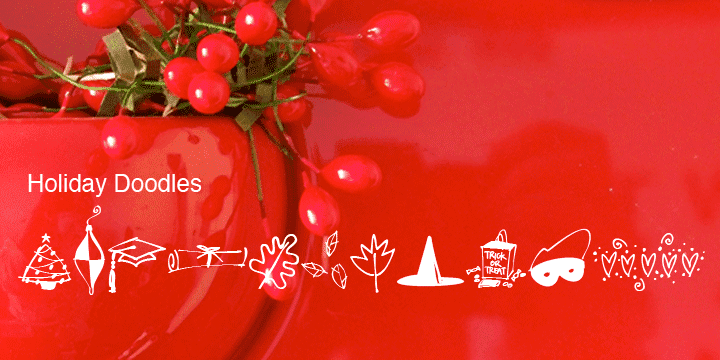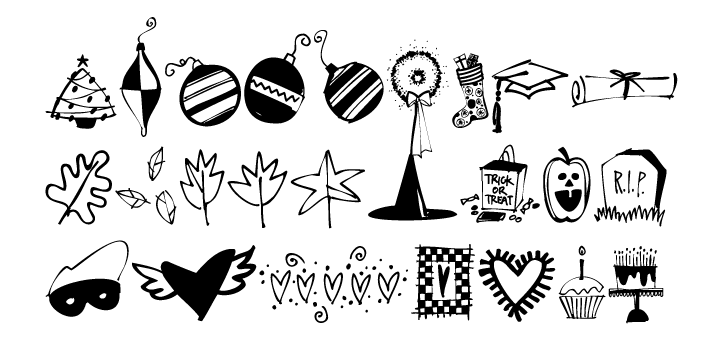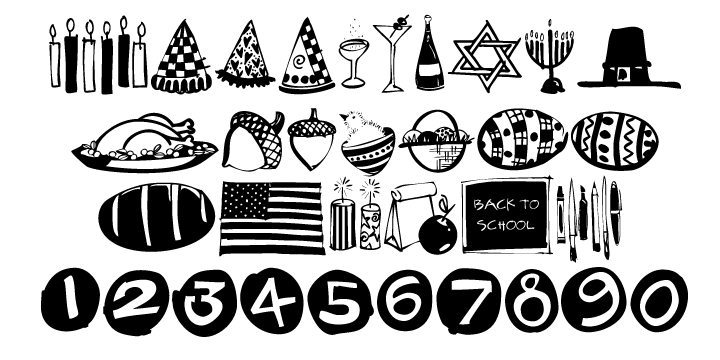
Holiday Doodles includes a set of numbers plus 50 seasonal year-long holiday doodles.
Great for a newsletter, monthly price list, or invitations. These illustrations have more detail, so they are great used at large point sizes as small illustrations.
This font is designed to work well with the hand-lettering fonts offered by Outside the Line.